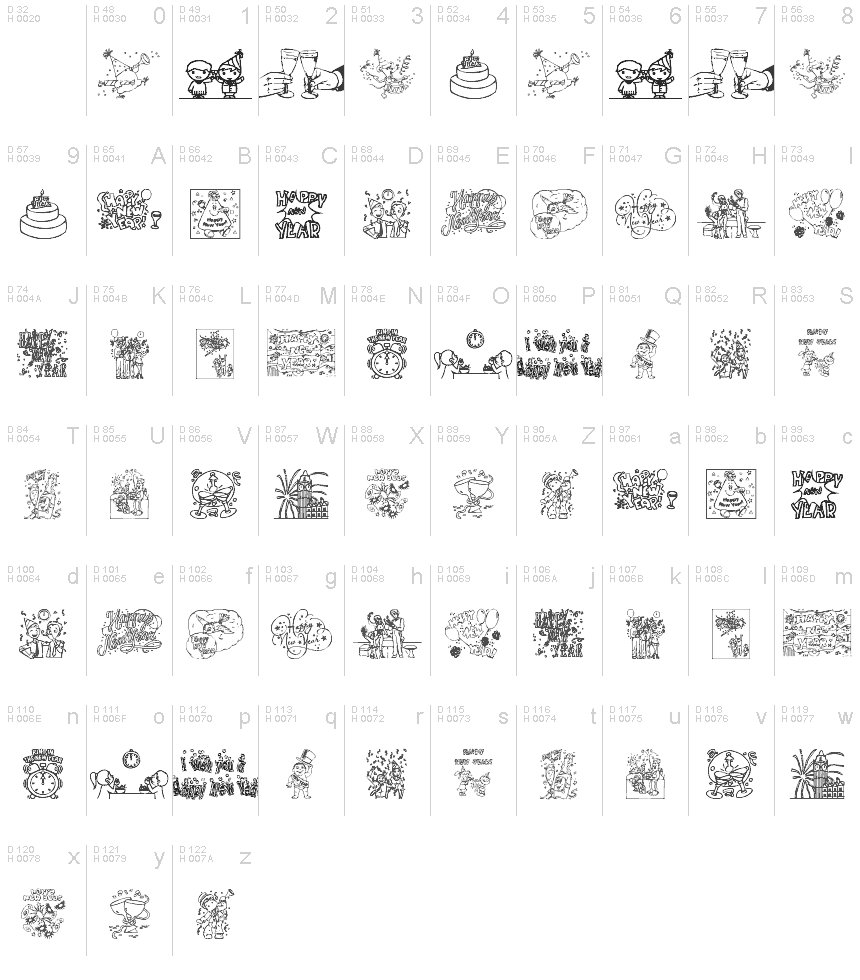
New year
"New Year" is a delightful dingbat font designed by Ding Bang. Its whimsical, hand-drawn aesthetic and playful symbols make it an ideal choice for festive and celebratory designs.
The font's diverse range of icons, from fireworks and champagne glasses to party hats and confetti, capture the joyful spirit of ringing in the new year. Its versatility extends beyond holiday-themed projects, as the vibrant, expressive characters can breathe life into a variety of creative endeavors, from greeting cards and invitations to packaging and branding.
The unique charm of "New Year" offers a refreshing alternative to more conventional typographic solutions, making it a valuable asset for designers seeking to infuse their work with a touch of playful exuberance.